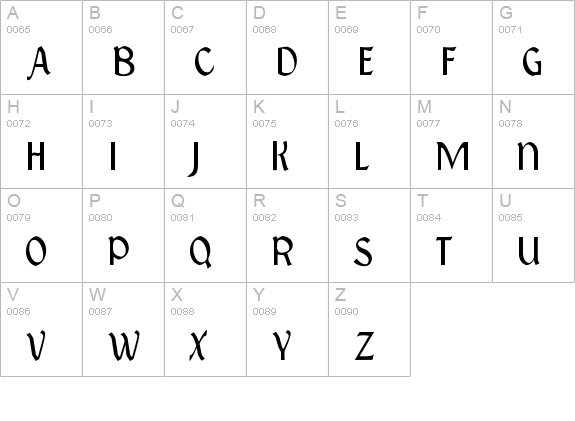
Vatikan Font Details
Vatikan font is a captivating and versatile typeface that effortlessly combines elegance and modernity. Its sleek and sophisticated design makes it perfect for a wide range of projects, from branding and advertising to packaging and editorial design. With its clean lines and balanced proportions, Vatikan font exudes a timeless appeal that is both timeless and contemporary. Its letterforms are carefully crafted to ensure legibility and readability, even at small sizes, making it an ideal choice for both print and digital applications. But what truly sets Vatikan font apart is its accessibility. This extraordinary typeface is available for free, allowing designers, creatives, and enthusiasts alike to access its beauty without any cost. You can easily download Vatikan font at FontsMarket.com, a reputable platform that offers a vast library of high-quality fonts. Whether you're working on a personal project or a professional assignment, Vatikan font will undoubtedly elevate your designs with its exquisite details and remarkable versatility. Embrace the freedom of creativity and download Vatikan font today to unlock endless possibilities in your typographic journey.